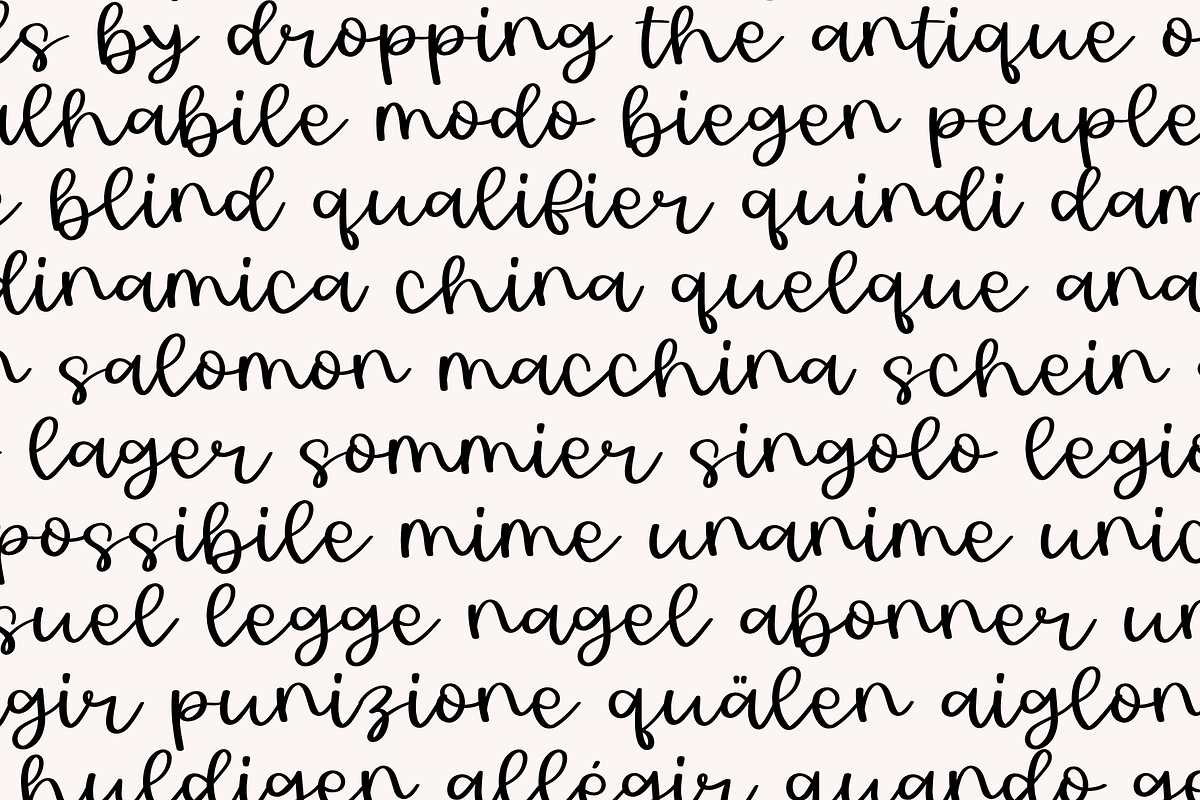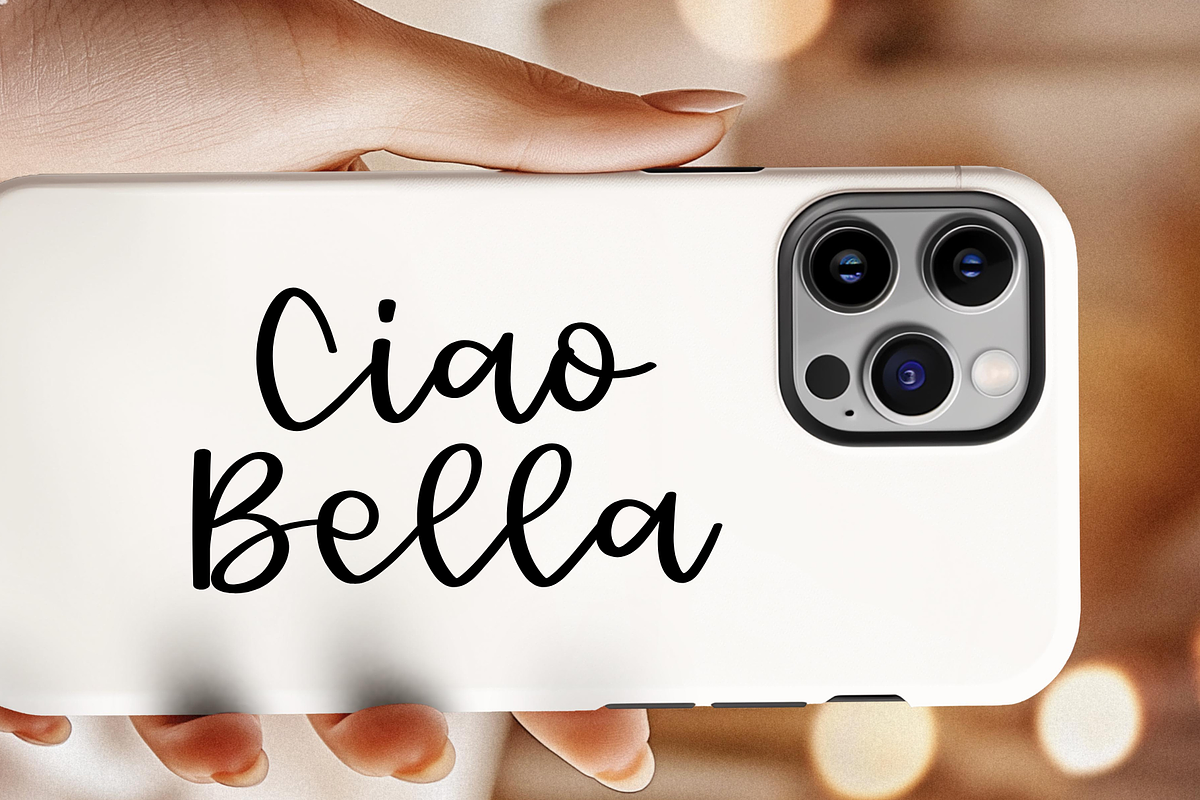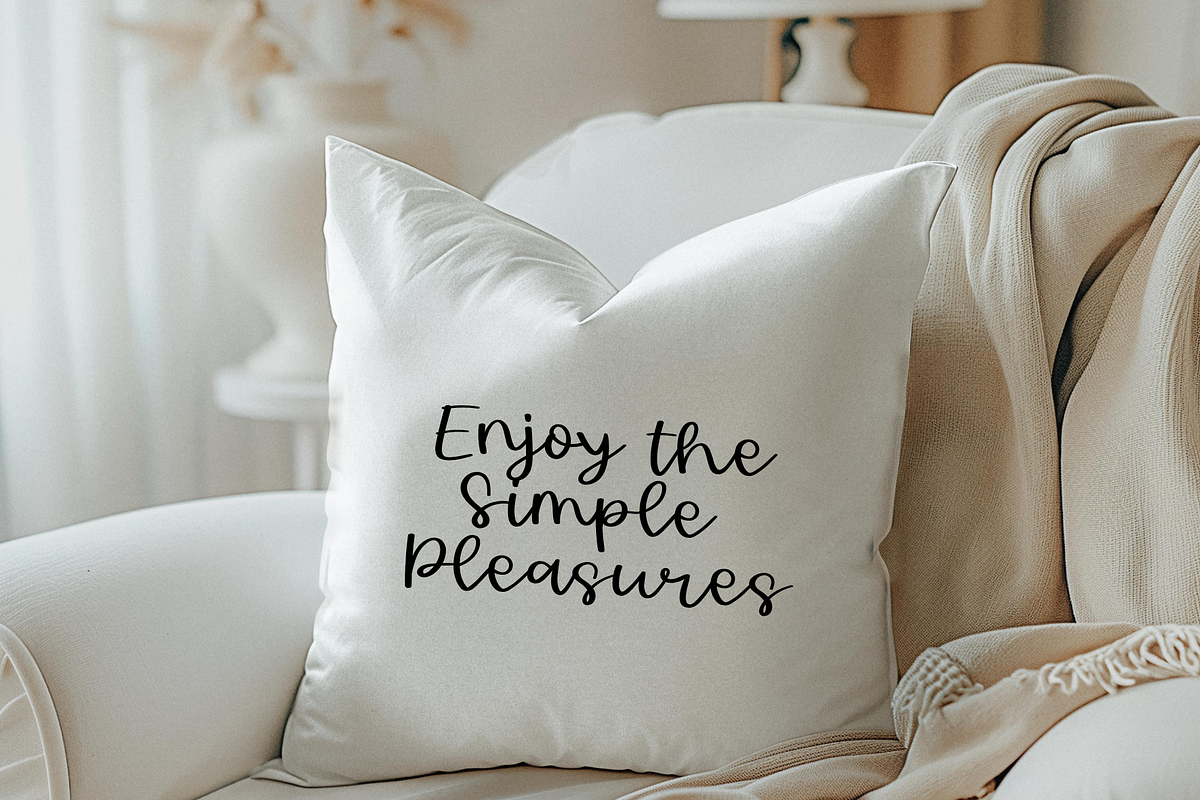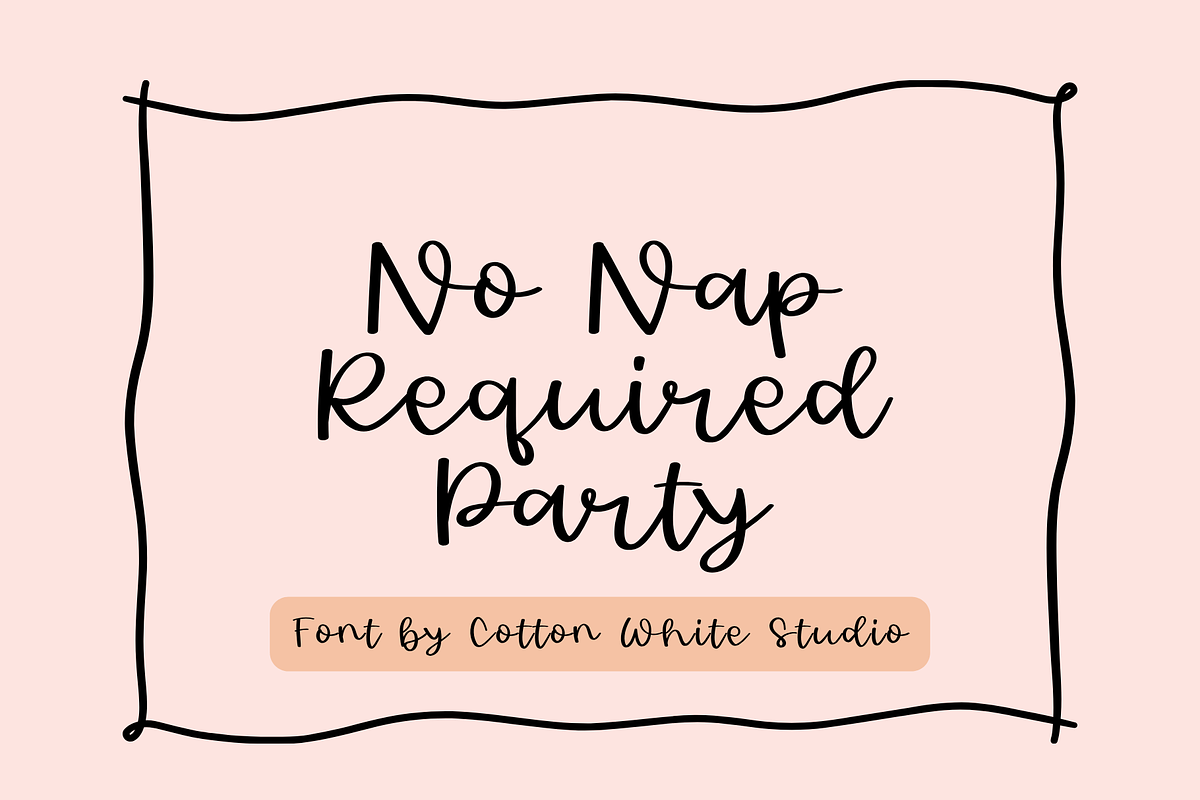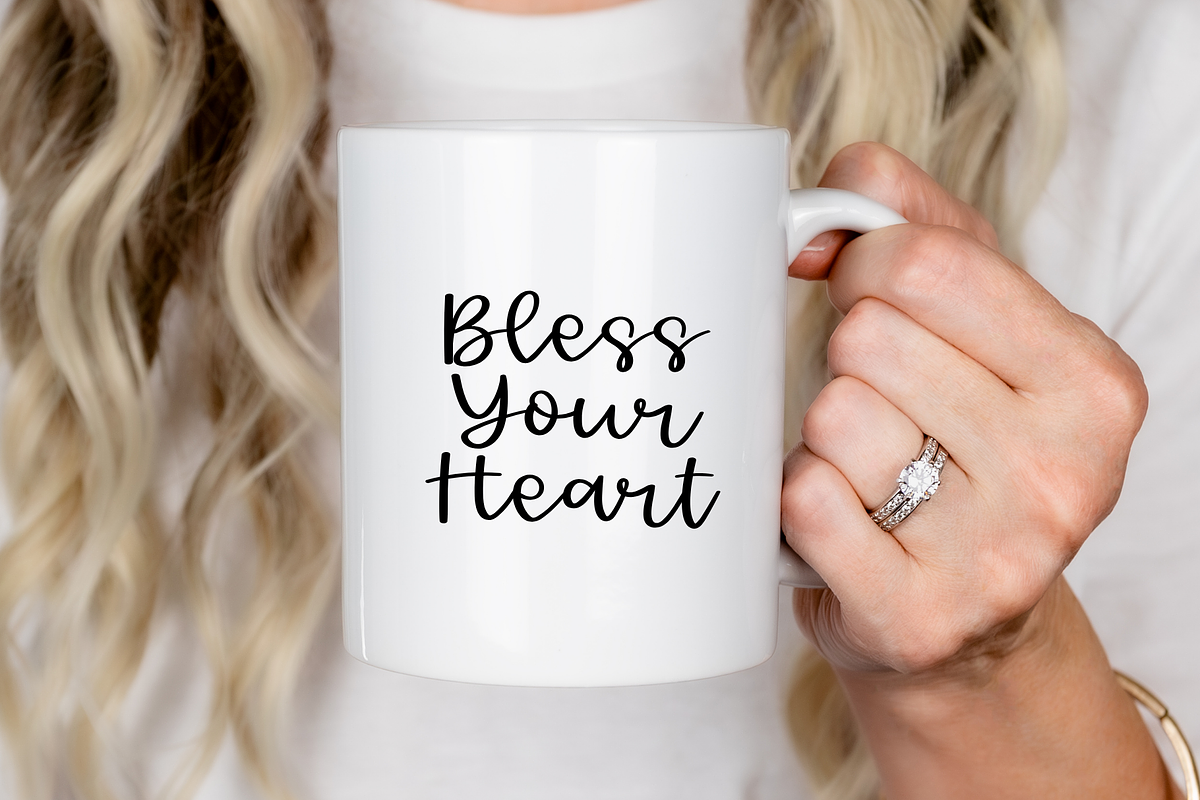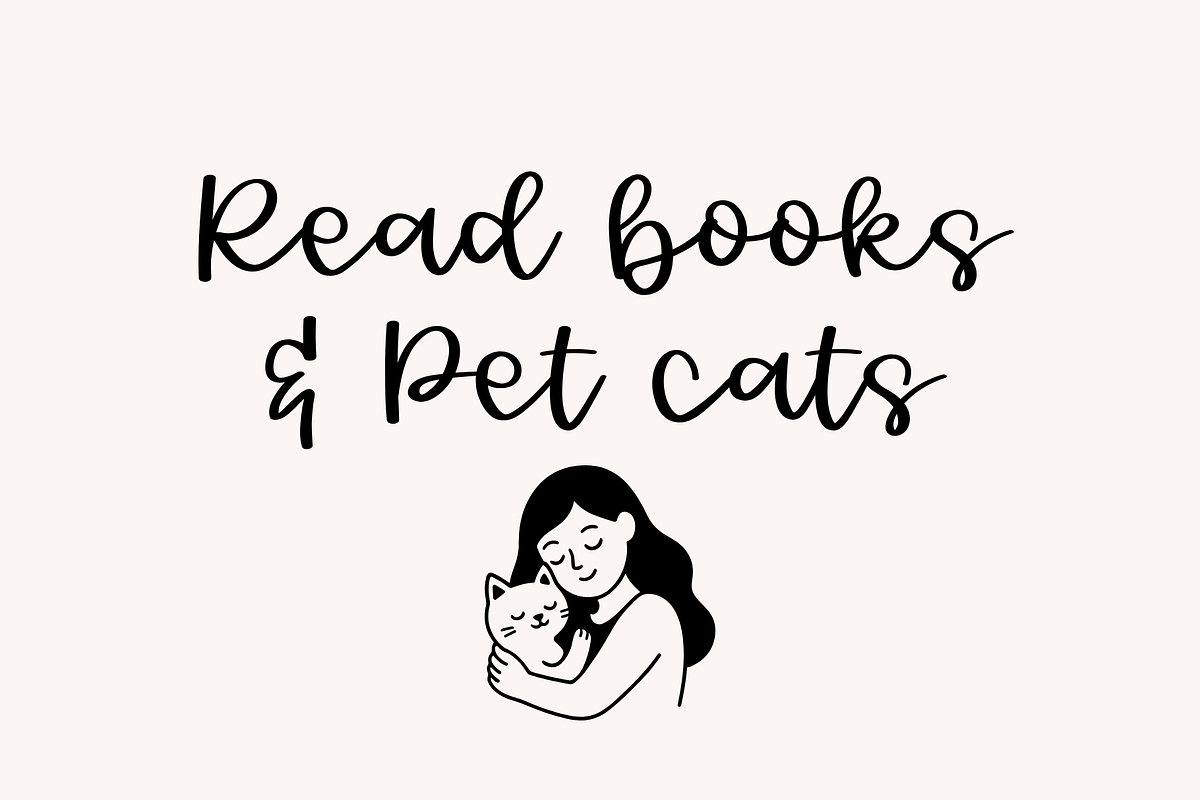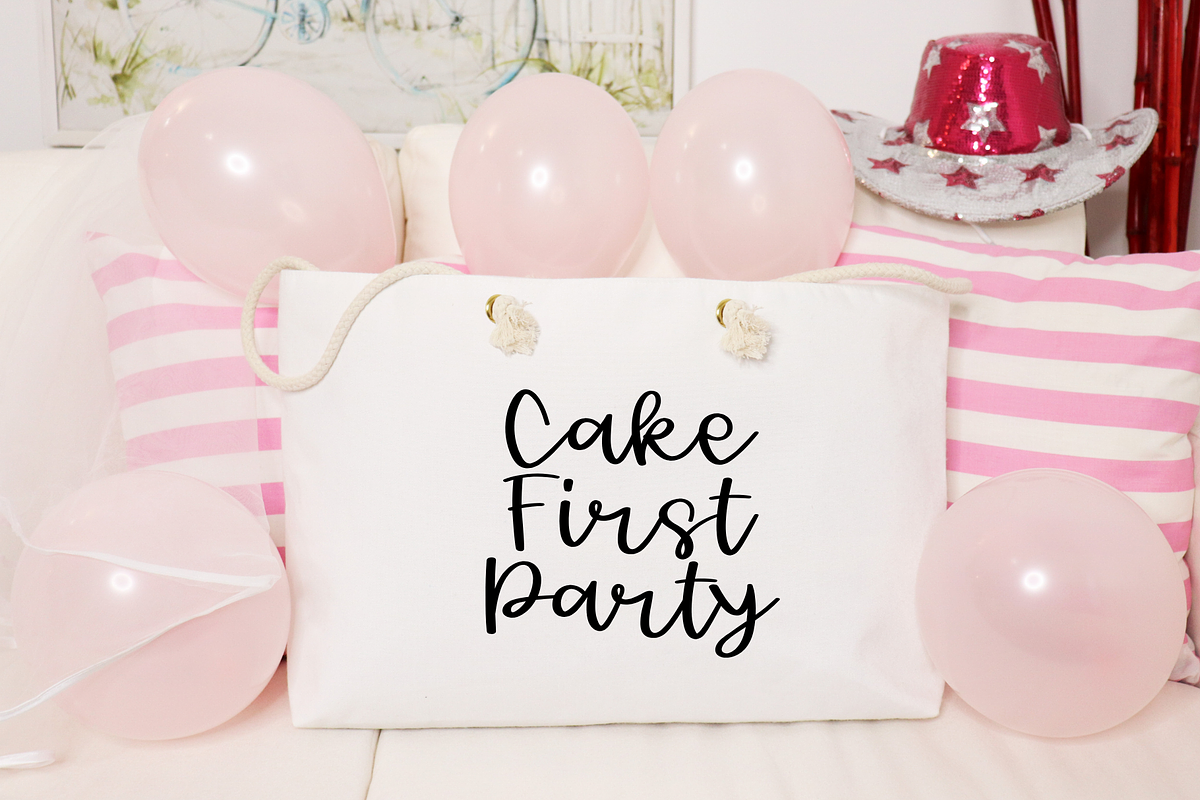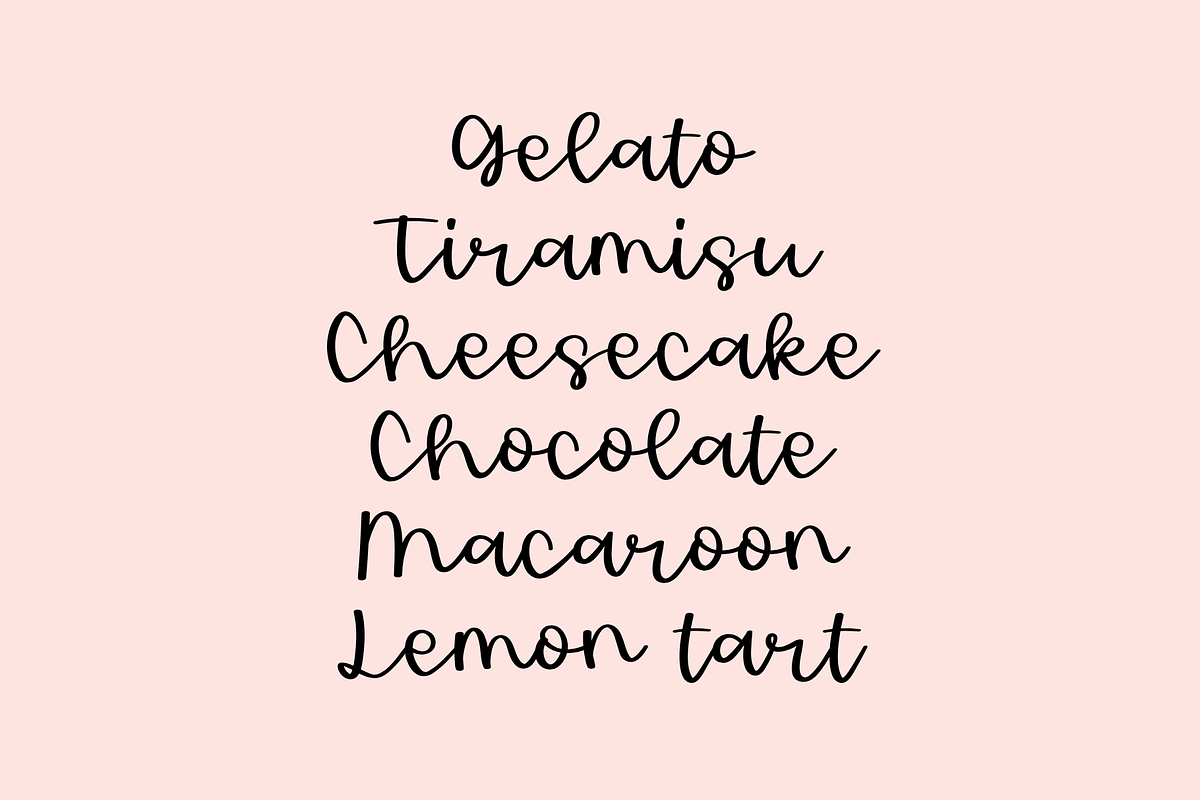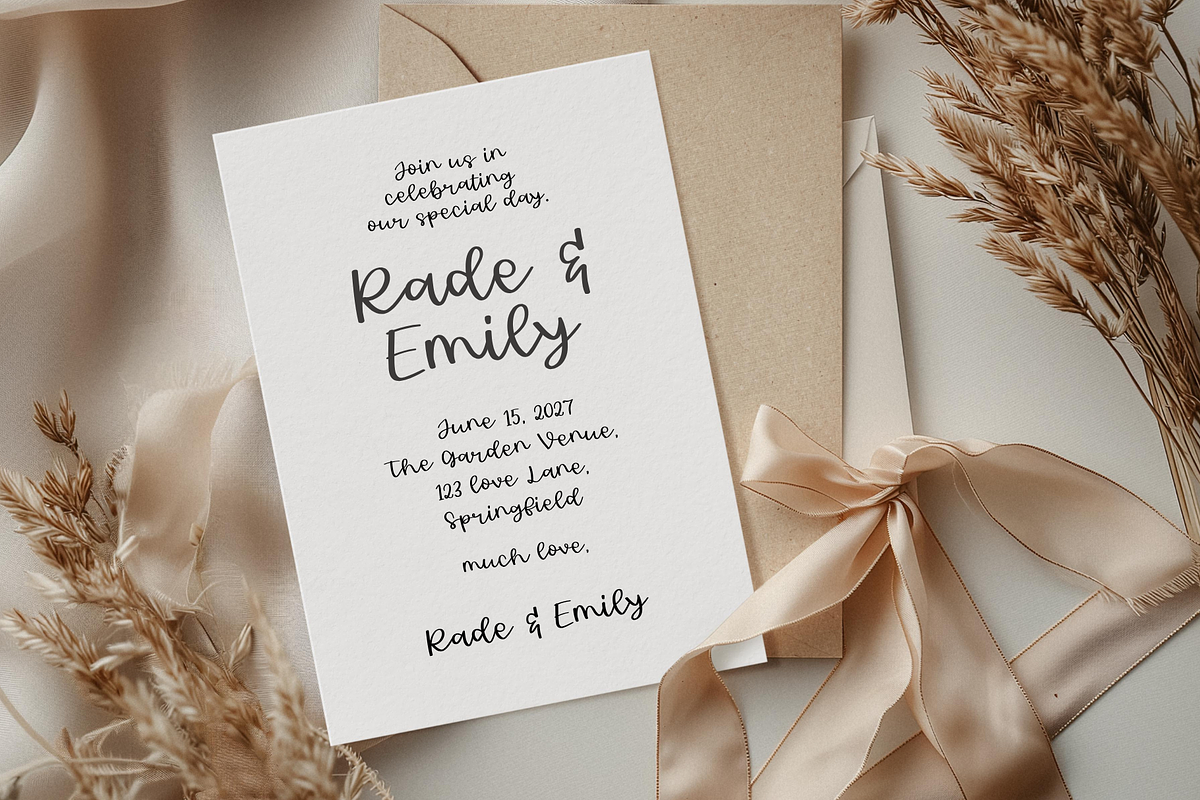
No Naps Required Party Font
Add a beautiful handcrafted touch to your creative projects with No Nap Required Party, a charming handwritten script font. Featuring elegant, flowing letterforms and an authentic hand-drawn feel, this font brings warmth, personality, and style to any design. Perfect for branding, logos, wedding invitations, social media graphics, blogs, planners, packaging, greeting cards, and so much more.